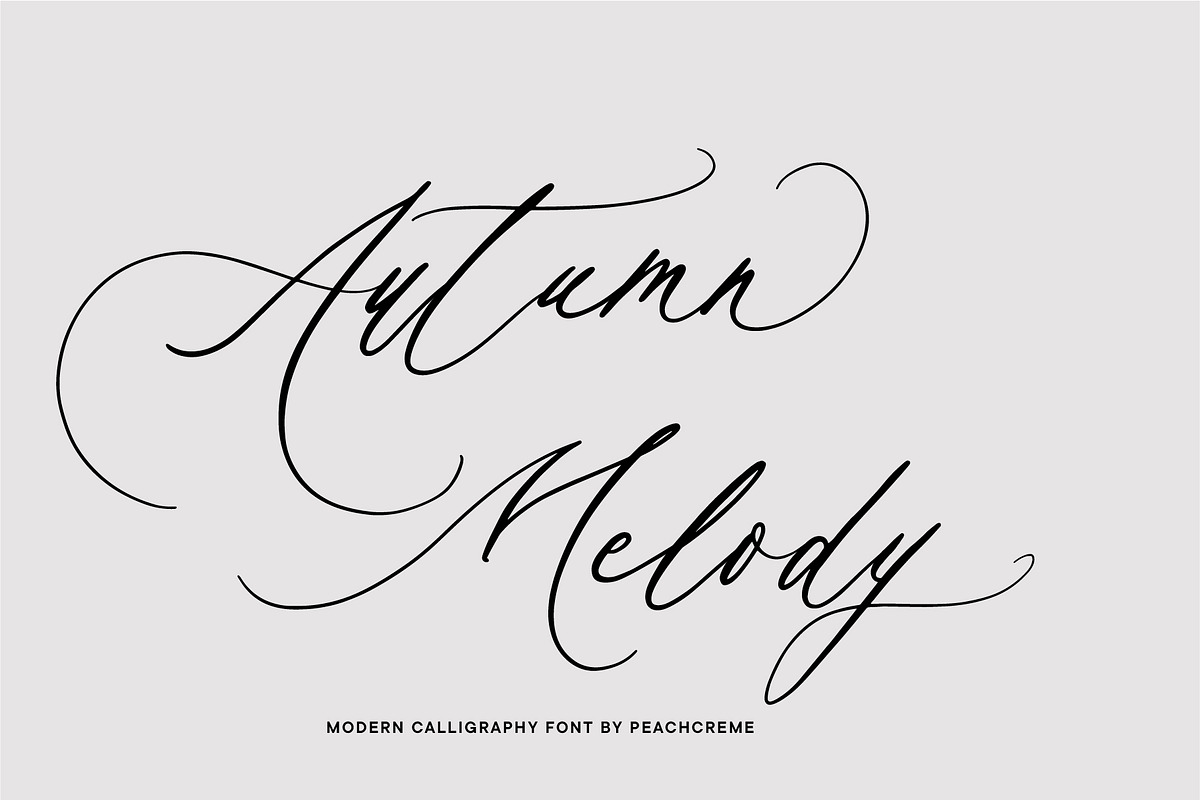
Step into a world where typography breathes artistry and emotion. Autumn Melody isn’t just a font — it’s a feeling. A modern calligraphy masterpiece meticulously crafted to capture the soul of hand-written elegance. Whether you’re designing wedding invitations, launching a luxury brand, or enhancing your digital content, Autumn Melody adds a touch of class, refinement, and timeless beauty that elevates every visual project.
The Heartbeat of Handcrafted Beauty
At the core of Autumn Melody lies a deep commitment to authenticity. This font was designed to reflect the delicate rhythm and emotional depth of real hand-calligraphy. Each stroke flows with intention, every curve tells a story, and every ligature dances with grace. Unlike generic digital fonts that feel stiff or repetitive, Autumn Melody captures the nuanced variation of ink on paper — the slight pressure, the graceful taper, the subtle lift — giving your text a living, breathing presence.
- Authentic Hand-Calligraphy Feel: Engineered to mimic the real movement of a calligrapher’s pen, not a machine’s script.
- 15+ Dynamic Alternates: Choose from multiple versions of high-frequency letters like a, t, h, n, s, ensuring visual variety and preventing repetition.
- Variable Swashes: Swash lengths and widths adapt based on letter frequency, adding natural flow and artistic balance.
- Contextual Ligatures: Seamless connections between letters create fluid, connected scripts that look professional and intentional.
Design with confidence — every detail is optimized for beauty, readability, and expressive power.